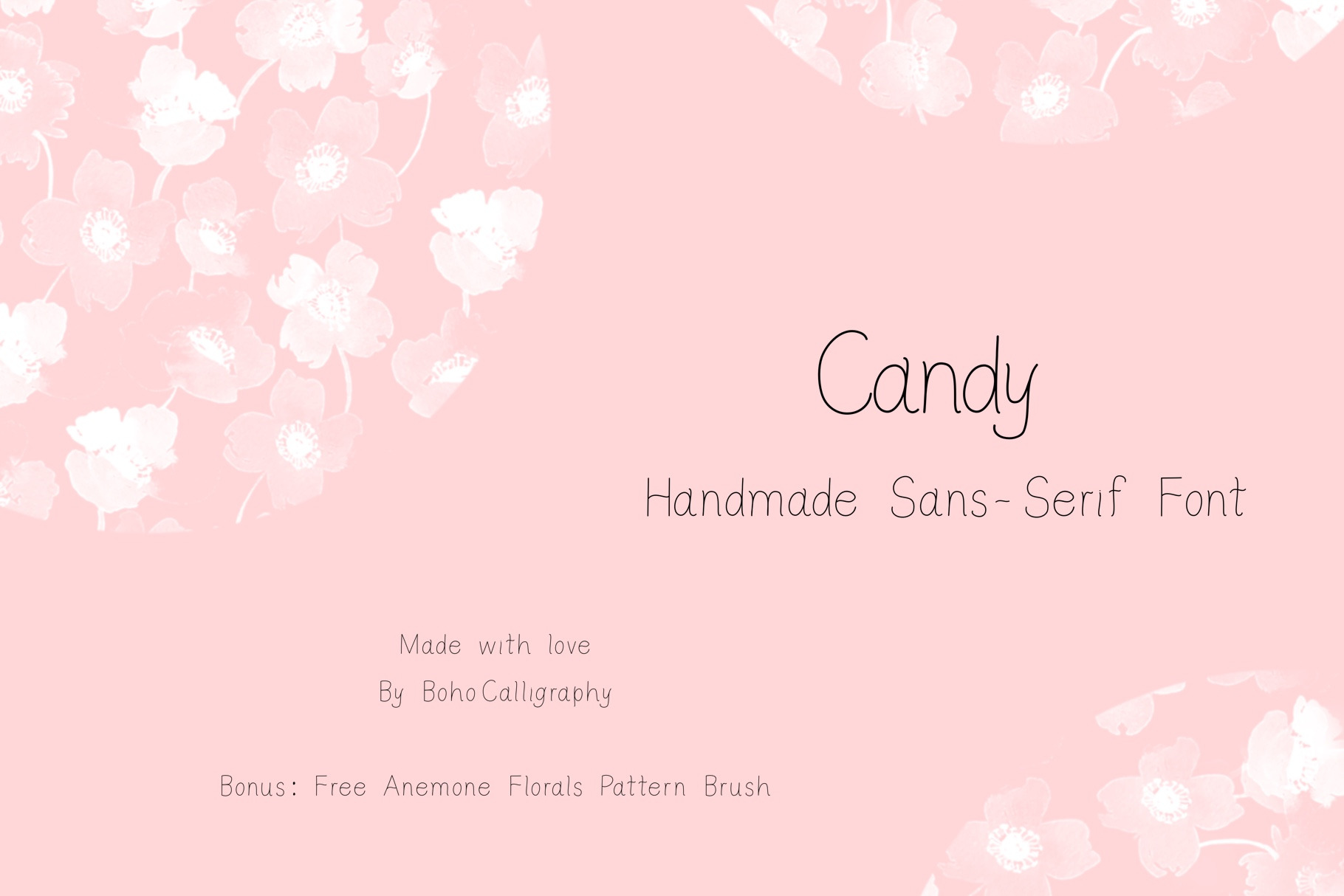
Candy - A handmade sans serif font
CANDY FONT 🍭
Candy is the fun simple and versatile sans serif font! It has that unicorn and magical vibes in it.
This font is available in three versions;
Bold. Medium. Light.
This font is handmade with love by me.
Candy is perfect for: logos, branding, wedding invitations, business cards, greeting cards, posters, magazines, social media, planner prints and websites.